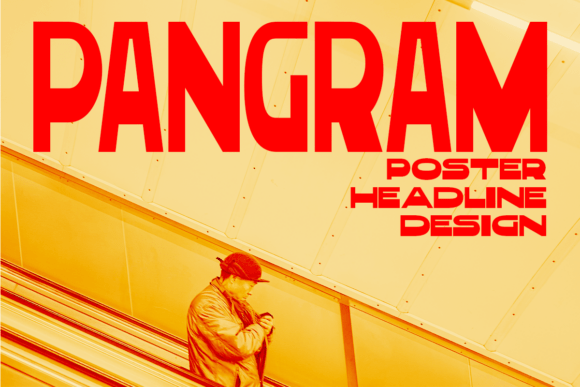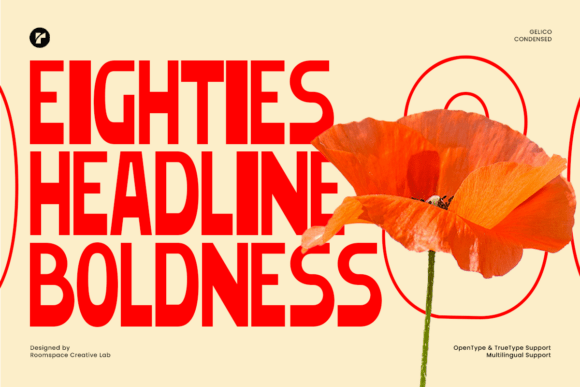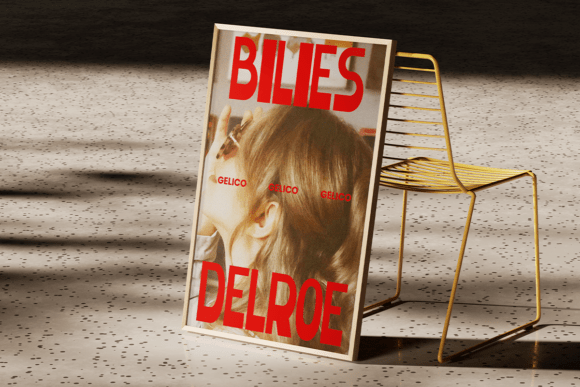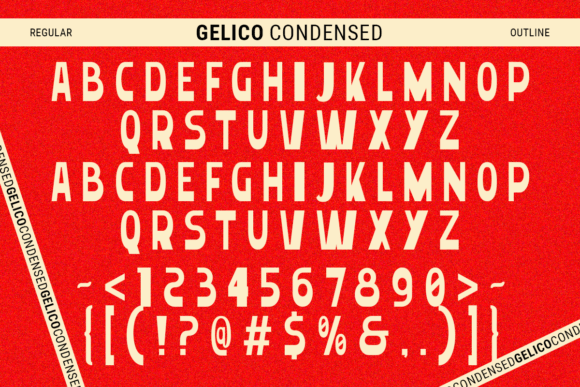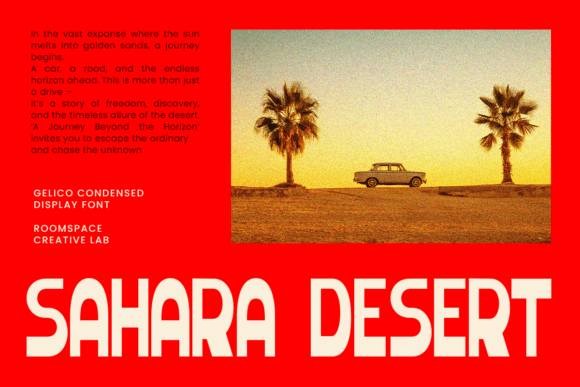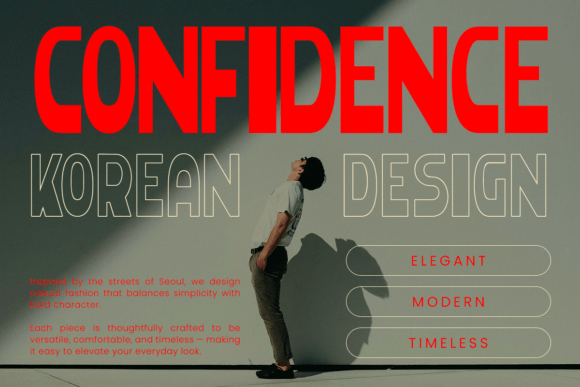
Introduction to Gelico Condensed Regular 1 Font
Gelico – Bold Condensed Display Font Gelico is a bold condensed display font designed to deliver strong impact and modern appeal .
| 👤 Author | roomspace |
With its sleek condensed form , Gelico combines boldness and simplicity , creating a typeface that instantly grabs attention while maintaining clarity and style Perfect for contemporary design projects , this font brings a professional yet creative vibe to your typography.
Key Features of Gelico Condensed Regular 1 Font
Why Choose Gelico Condensed Regular 1 Font?